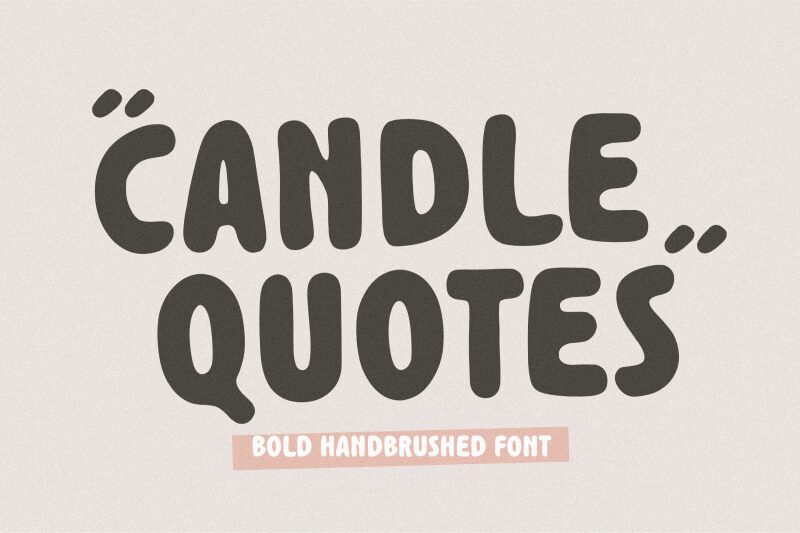
Candle Quotes
Candle Quotes font by Balpirick Studio is a display typeface with cartoonish rounded forms that show off an informal side. Its thick connections contribute to its bold, casual look brought by handwritten letterforms. The vintage and retro visuals are some main contributors to a friendly tone.